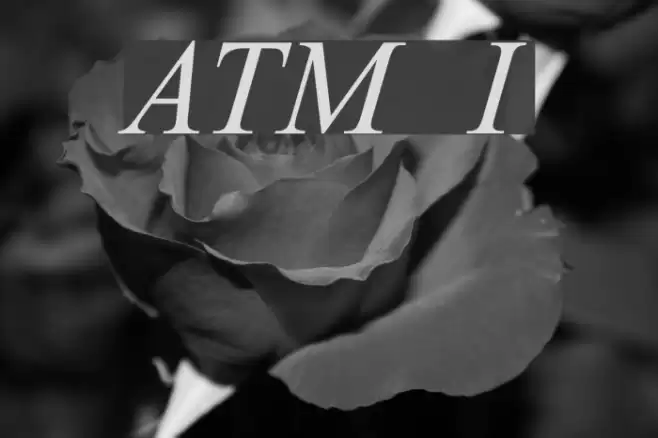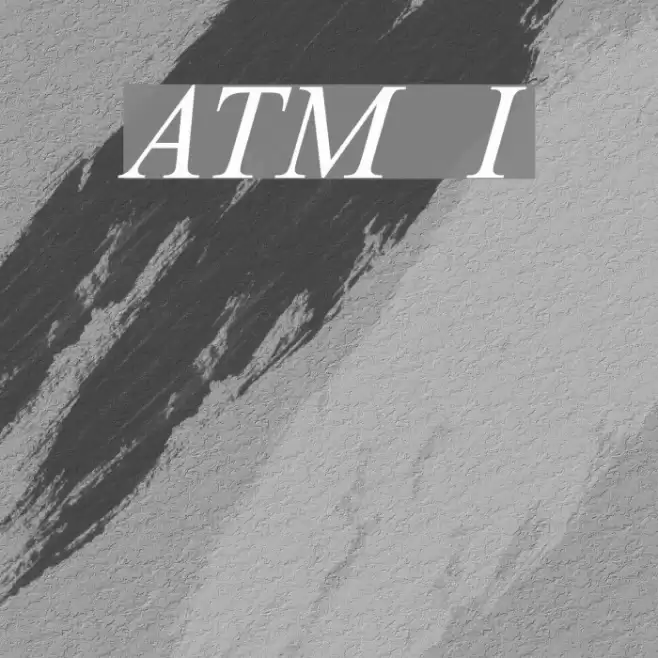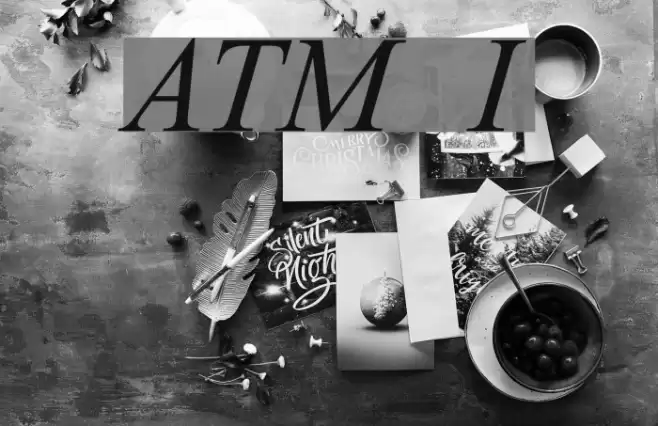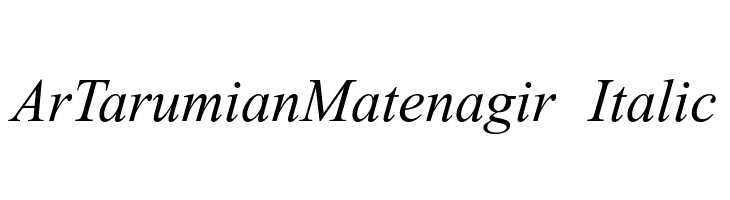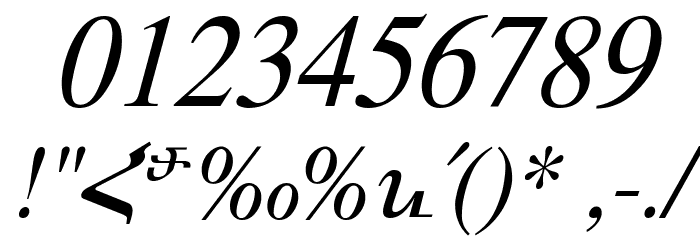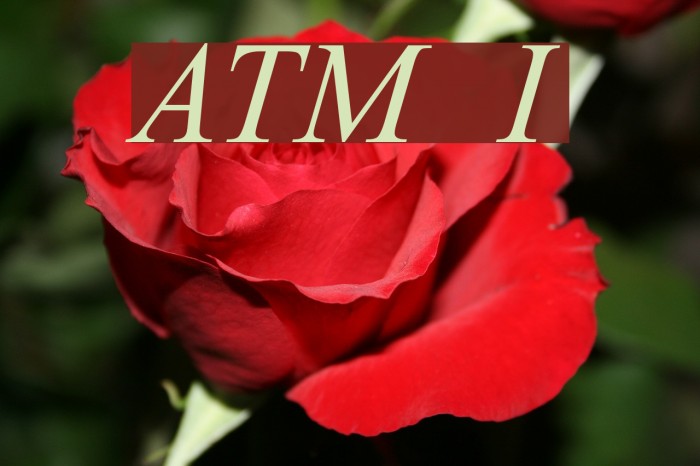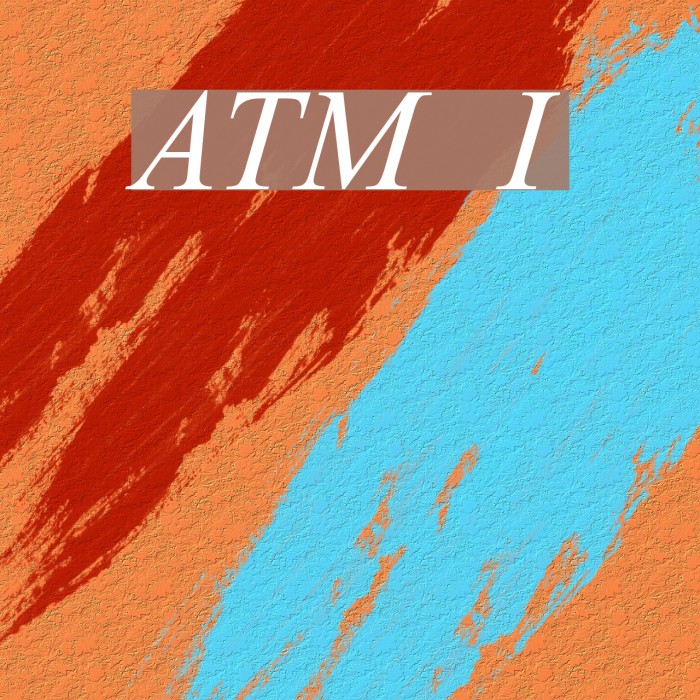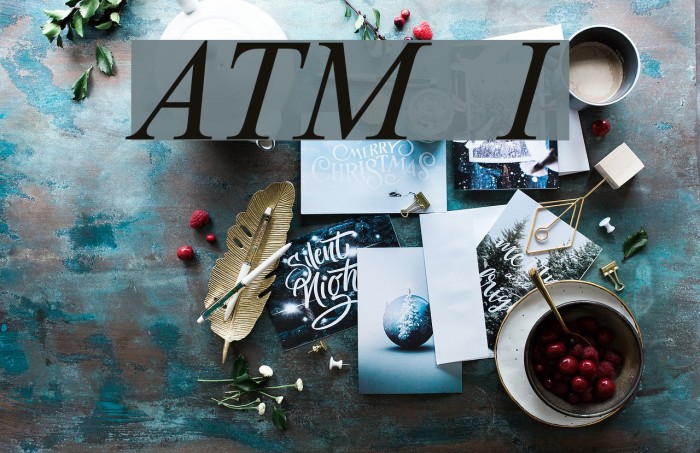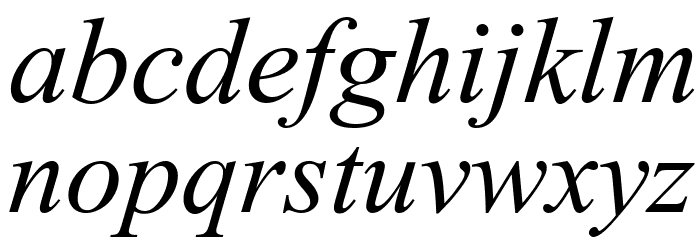
ArTarumianMatenagir Italic
This elegant serif font features a classic italic style with smooth, flowing curves and a refined appearance. The uppercase letters are tall and slightly narrow, while the lowercase letters maintain a consistent slant, enhancing the font's sophisticated look. The numerals are well-proportioned, and the special characters are designed to complement the overall aesthetic. The font's italic nature adds a dynamic and graceful touch, making it suitable for formal and creative applications alike.
An elegant serif italic font with smooth curves and a refined appearance.
- Proposed Projects: Ideal for wedding invitations, formal documents, elegant branding, and editorial design.
- Category: Serif
- Overall Style: Classic